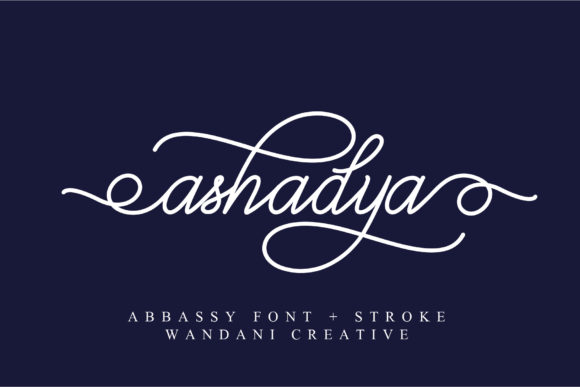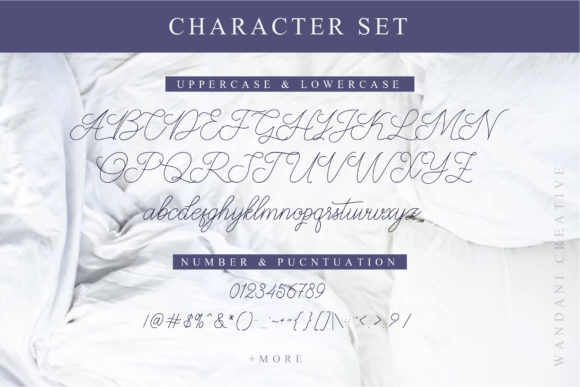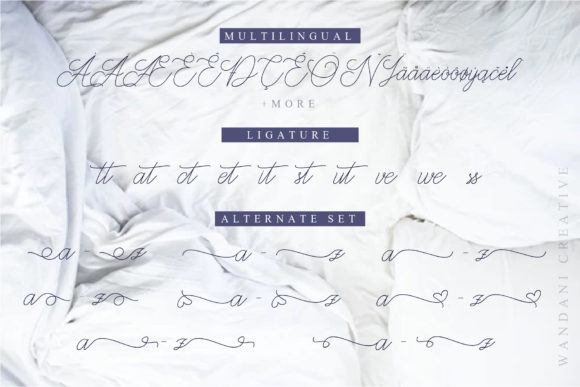
Unleash Your Creativity with Abbassy Script Font
Have you ever stared at a blank canvas, waiting for inspiration to strike? That’s when the magic happens – a burst of creativity, a dash of imagination, and a whole lot of excitement! As designers, we’re constantly on the lookout for tools that can help us bring our ideas to life. That’s where Abbassy Script Font comes in – a stunning and bold handwritten font that adds a touch of timeless elegance to any design project.
Whether you’re working on a branding project, creating a wedding invitation, or designing a beautiful typography piece, Abbassy Script Font is the perfect companion to help you achieve your vision. Its unique, handwritten style lends an air of sophistication and sophistication to any design, making it a valuable addition to any designer’s toolkit.
Abbassy Script Font Key Features
- Font Style: Script Font with elegant and refined design, suitable for formal and professional applications.
- Unique Characteristics: Distinctive ligatures, swashes, and flourishes that add a touch of sophistication and elegance to text.
- Language Support: Supports a wide range of languages, including Latin, Cyrillic, and Greek scripts, making it suitable for international applications.
Review of Abbassy Script Font
Overall, I’m impressed with Abbassy Script Font. ✨ It has a unique, elegant design that adds a touch of sophistication to any project. The font is perfect for creating a luxurious and high-end feel.
The font is highly customizable, allowing you to adjust the weight, size, and spacing to fit your needs. ✨ The script font also features a wide range of language support, making it suitable for projects that require multilingual text.
However, there are a few limitations to consider: ⚠️ The font may not be suitable for small text sizes, as the script design can become difficult to read. Additionally, the font may not be compatible with all operating systems, which can lead to display issues.
Some specific things that work well with Abbassy Script Font include:
- Wide language support
- Elegant and sophisticated design
- Perfect for creating a luxurious feel
Overall, I would highly recommend Abbassy Script Font for projects that require a high-end feel. With its unique design and high level of customization, it’s a great choice for designers looking to add a touch of sophistication to their work.
Abbassy Script is ideal for:
- Special occasion announcements (e.g. birthdays, graduations).
- Branding and marketing materials (e.g. logos, brochures).
Tips for Getting the Most Out of Abbassy Script
To get the most out of Abbassy Script, try:
- Pairing it with a bold or sans-serif font for contrast.